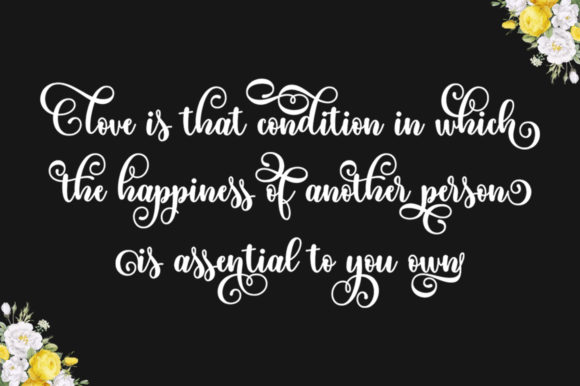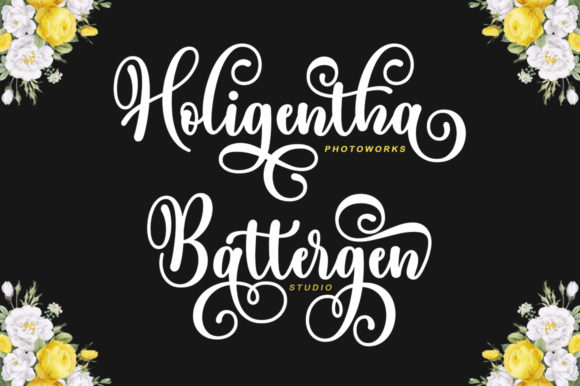
Family Holiday Font
db-ku.com - Script & Handwritten -- Family Holiday is a delicate and fashionable handwritten font. This versatile script font has a wide spectrum of applications ranging from greeting cards to headlines and is guaranteed to add a romantic feel to your next project.